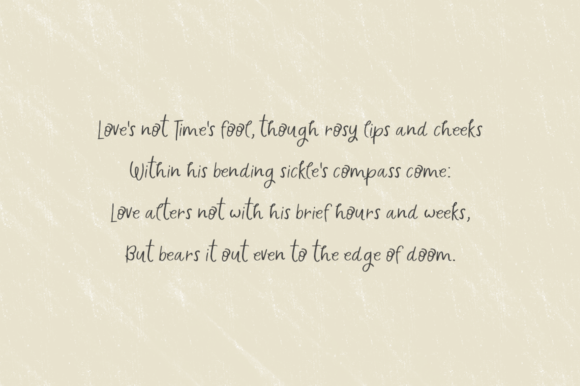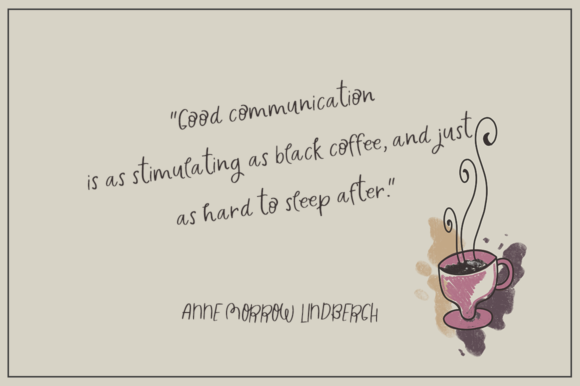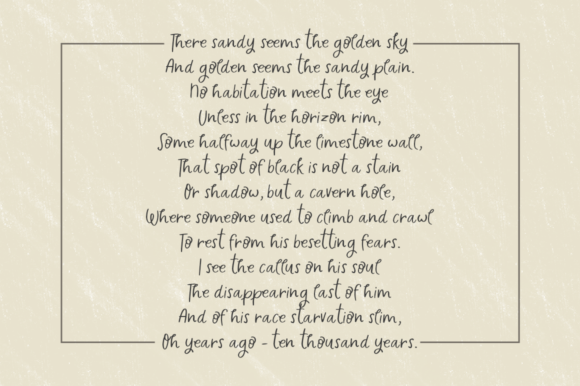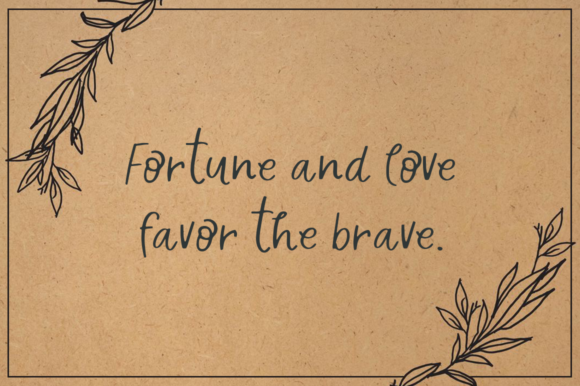
Mistakes Showing Font
About Mistakes Showing Font
Mistakes Showing is a lovely and timeless handwritten font. It is the best choice for creating eye catching logos, branding and quotes. Every letter has a unique and beautiful touch, which will make your design come alive!